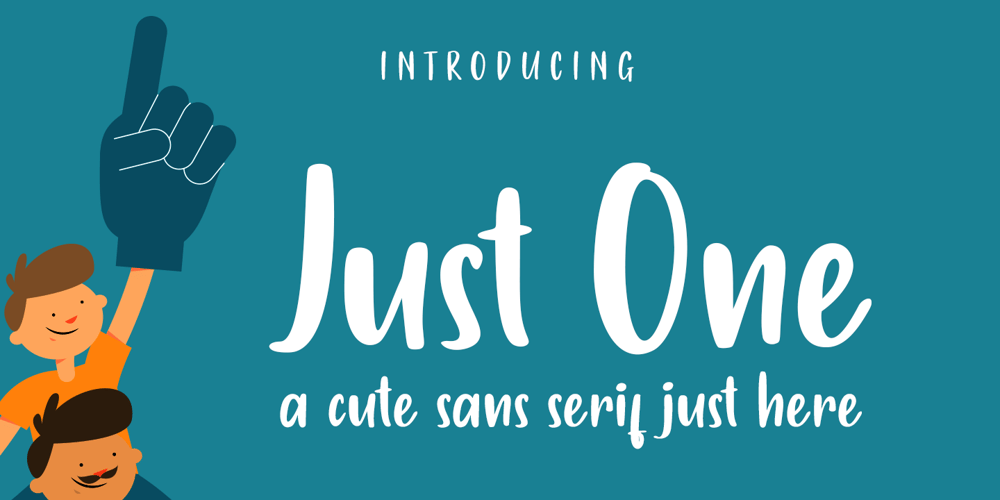
Just One Font Family was designed by Arief Tri Sulistiyono and published by Supersemarletter. Just One contains 1 styles and family package options. Just one is a fun and friendly handwritten font. Its casual charm makes it look very simple, easy to read and, ultimately, very versatile. This font will look amazing in any context, whether it’s used on a DIY, outdoor project or as a main title!. Honestly it works perfectly for headlines, logos, posters, packaging, T-shirts and much more.Font Features :• Regular version• Character set A-Z in uppercase and lowercase• Numerals & Punctuation• Accented Characters• Multiple Languages SupportedRecommended to use in Adobe Illustrator or Adobe Photoshop with opentype feature.If you have questions, just send me a message and I’m glad to help.